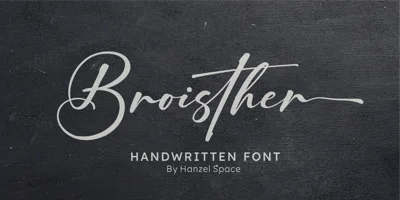
Broisther Font
Broisther Font is perfect for brotherhood organization branding, men's club signage, fraternal society materials, masculine lifestyle magazines, sports team logos, outdoor adventure companies, craft beer branding, barbershop signage, men's grooming products, brotherhood event promotions, and any project that requires strong masculine character with fraternal solidarity.
What makes Broisther Font exciting is its powerful ability to communicate authentic masculine camaraderie and brotherhood bonds through robust letterforms that embody strength, loyalty, and fraternal unity. This commanding typeface features bold, confident strokes with rugged characteristics that convey reliability, trustworthiness, and genuine brotherhood values. The font's fraternal character adds instant credibility and masculine appeal to any design, making it perfect for brands celebrating male friendship, brotherhood traditions, and masculine solidarity.
Broisther Font comes in multiple font families including Regular, Bold, Condensed, Rugged, Outline, and Brotherhood variations, providing designers with comprehensive options to create fraternal compositions and achieve the perfect masculine aesthetic for brotherhood-focused design projects.
Whether you're developing men's organization branding, creating fraternal event materials, or designing masculine lifestyle campaigns, Broisther Font offers the perfect solution for projects demanding authentic brotherhood character and masculine solidarity. This powerful typeface excels in display applications where fraternal presence is essential, ensuring your designs communicate brotherhood values and masculine authenticity. The robust character and fraternal styling of Broisther Font make it an indispensable tool for designers who prioritize masculine brotherhood, fraternal bonds, and authentic male solidarity in their typographic selections.